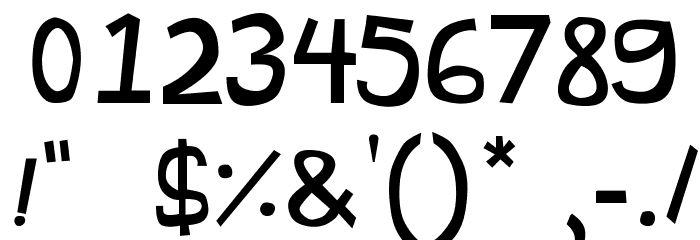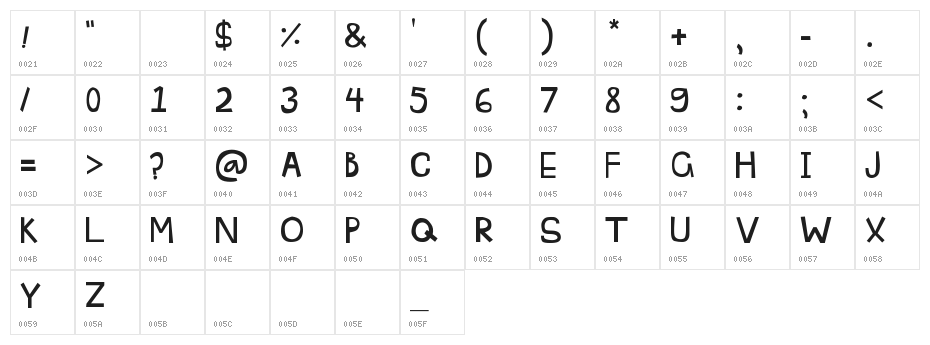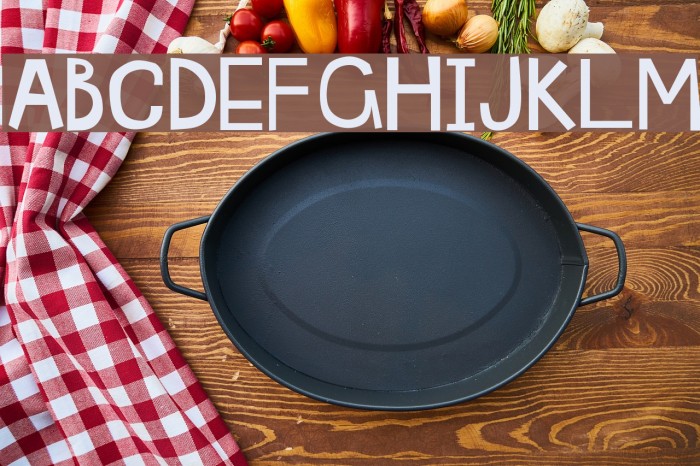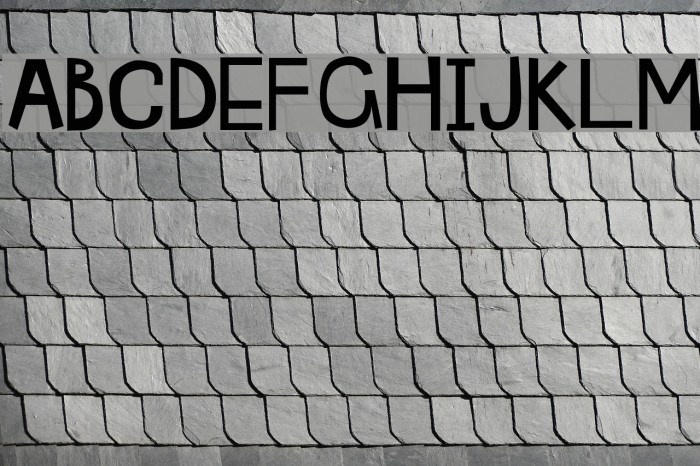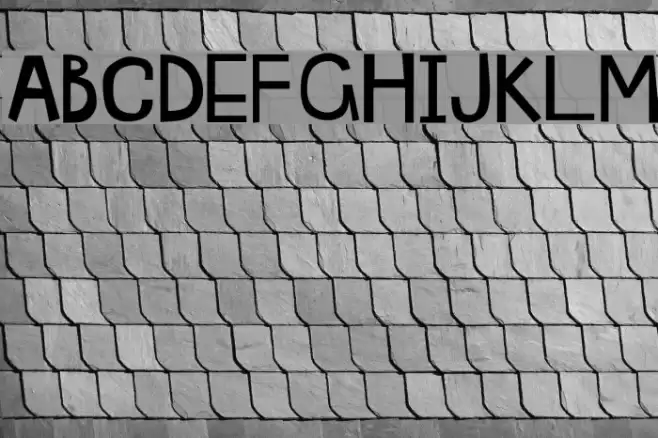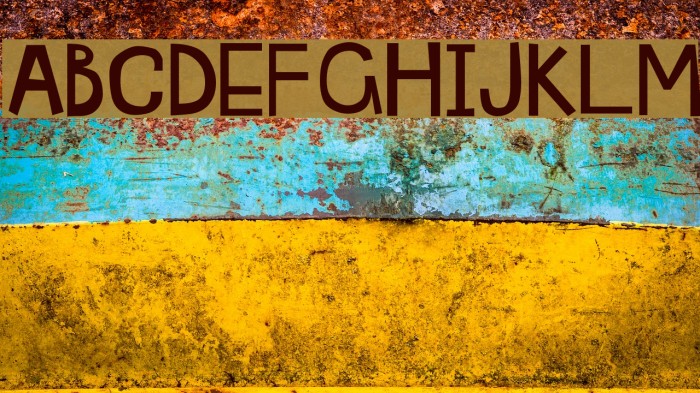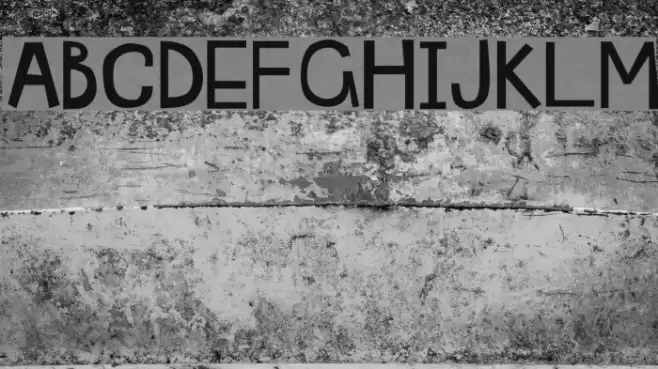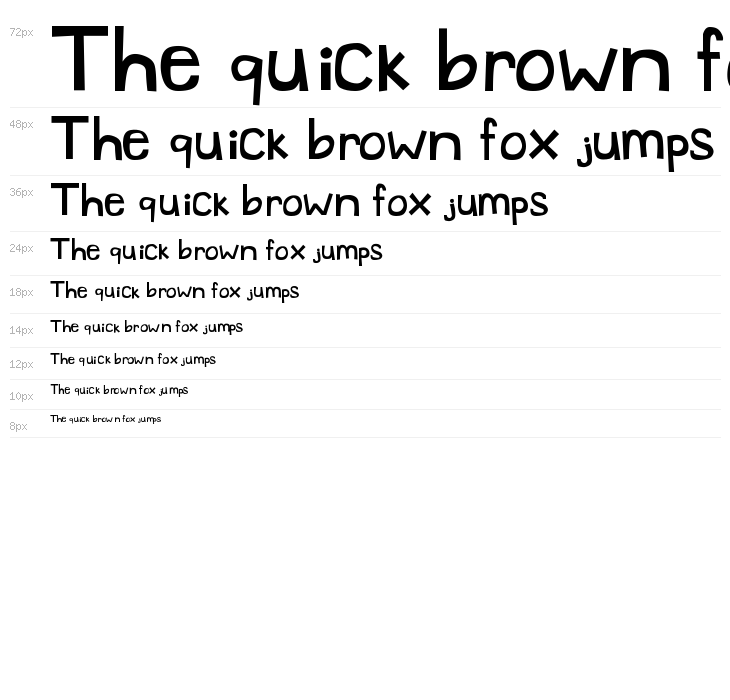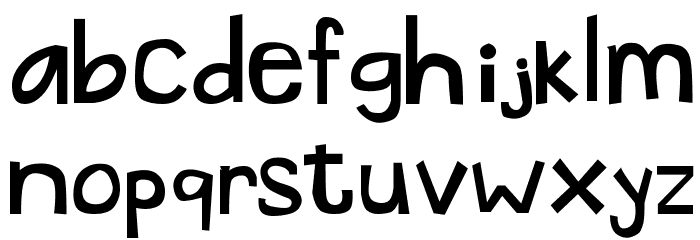
Pascu1 Font
Pascu1 Description
This font features a playful and informal style with a handwritten appearance. The characters are slightly irregular, adding a whimsical touch to the overall design. The uppercase letters are bold and prominent, while the lowercase letters maintain a consistent flow with rounded edges. The numerals are clear and easy to read, matching the playful tone of the alphabet. Special characters are creatively designed, enhancing the font's unique personality. This font is ideal for projects that require a fun and engaging aesthetic.
| Proposed Projects | Ideal for children's books, greeting cards, playful branding, and casual invitations. |